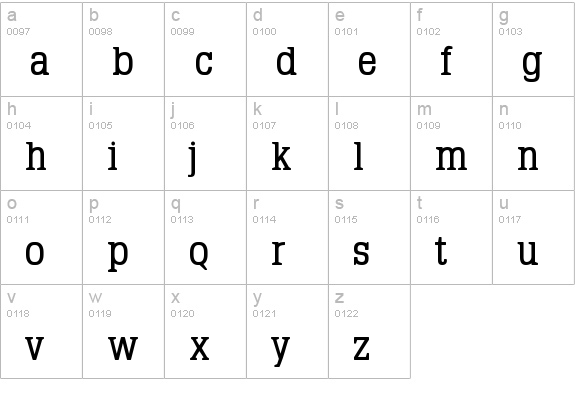
TypoLatinserif-Bold Font Details
TypoLatinserif-Bold is a strong, high-contrast variant in the TypoLatinserif typeface family \xE2\x80\x94 well suited to headlines, attention-grabbing titles, and strong calls-to-action.
TypoLatinserif-Bold is a bold and striking font that effortlessly combines classical elegance with a contemporary twist. With its strong and confident letterforms, this font is perfect for making a statement and capturing attention. Each character is meticulously crafted, ensuring the utmost clarity and legibility. The bold weight of TypoLatinserif-Bold adds a sense of power and authority to any design, making it an excellent choice for headlines, titles, and logos. Its strong presence on the page demands attention and conveys a sense of professionalism and sophistication. One of the most enticing aspects of TypoLatinserif-Bold is that it is available for free! That's right, you can download this impressive font without spending a dime. Simply visit FontsMarket.com and find this font among their extensive collection of high-quality typefaces. The free availability of TypoLatinserif-Bold allows designers, creatives, and enthusiasts to access this stunning font without any barriers. Whether you're working on a branding project, a magazine layout, or a website design, TypoLatinserif-Bold will enhance your work and make it stand out. Its versatility and boldness lend themselves to a wide range of applications, making it a valuable addition to any designer's toolkit. So, why wait? Don't miss out on the opportunity to enhance your designs with TypoLatinserif-Bold. Download this font for free at FontsMarket.com and let its bold and elegant letterforms elevate your next project to new heights.